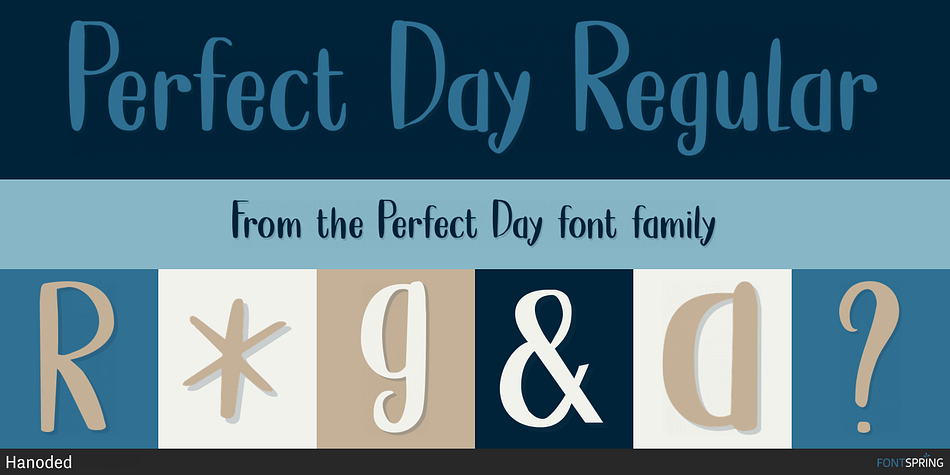
Perfect Day Regular
Designed by David Kerkhoff, Perfect Day is a hand drawn font family. This typeface has two styles and was published by Hanoded.
Perfect Day is a stylish handmade font: it is cute, neat and happy. I can’t guarantee that this font will make your days perfect, but you can give it a go and see where it takes you!